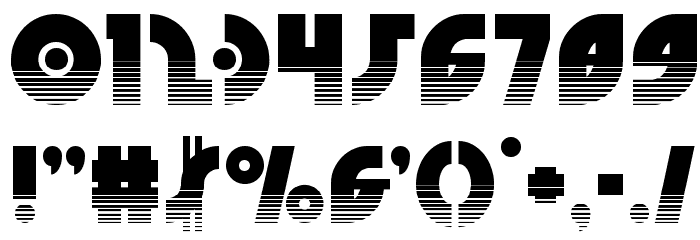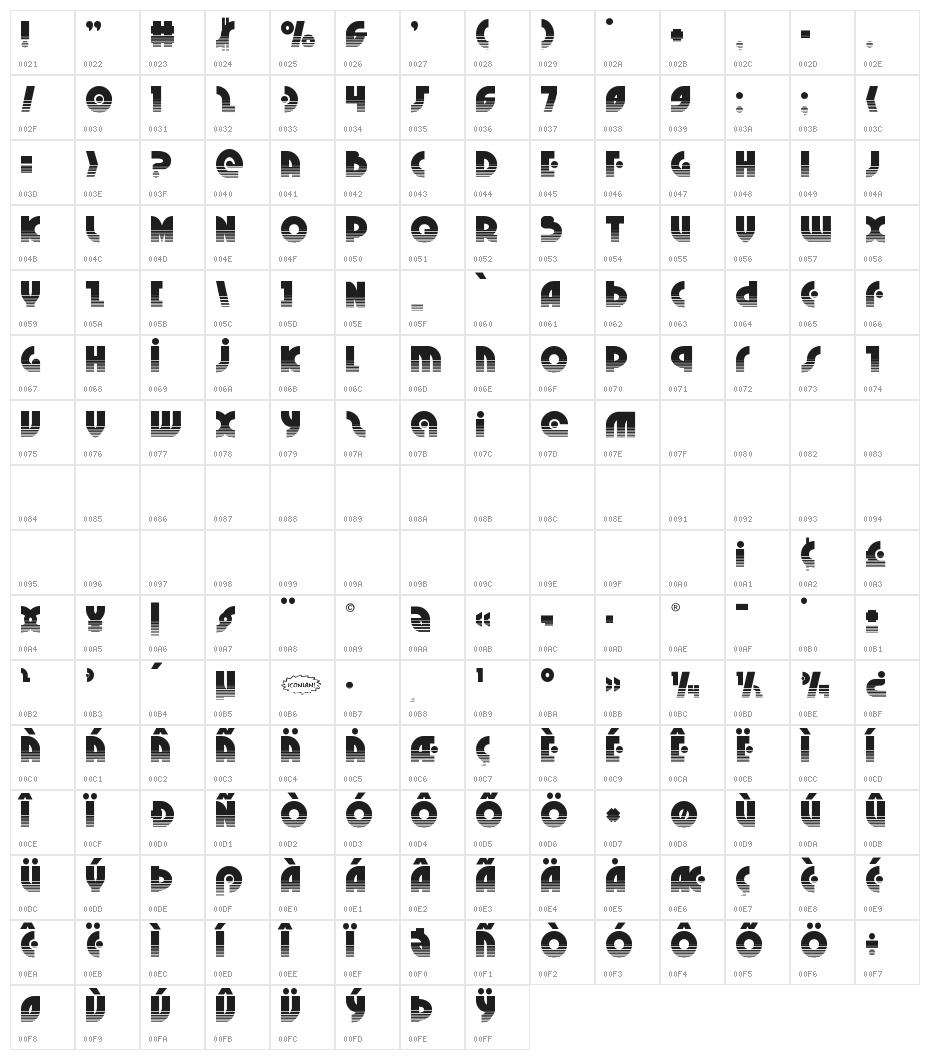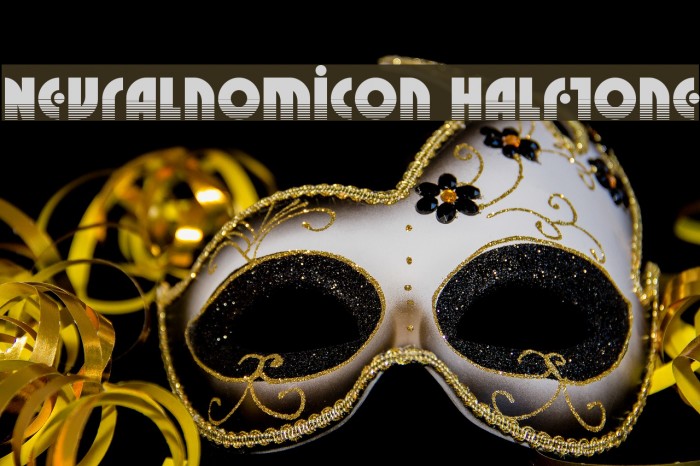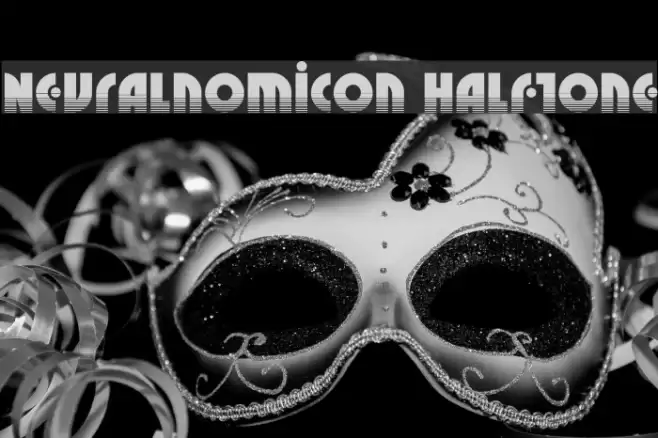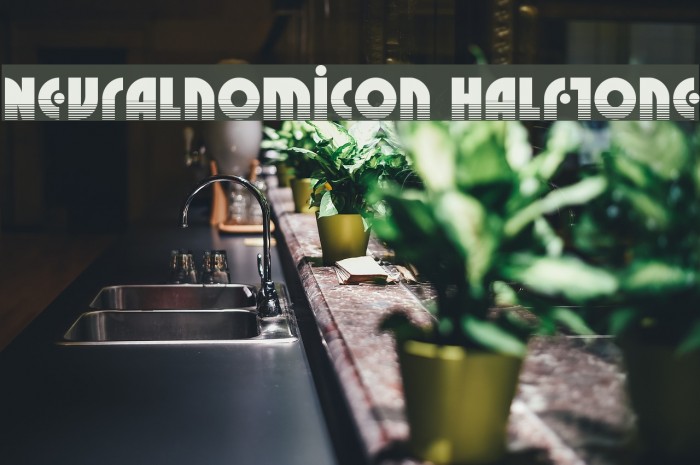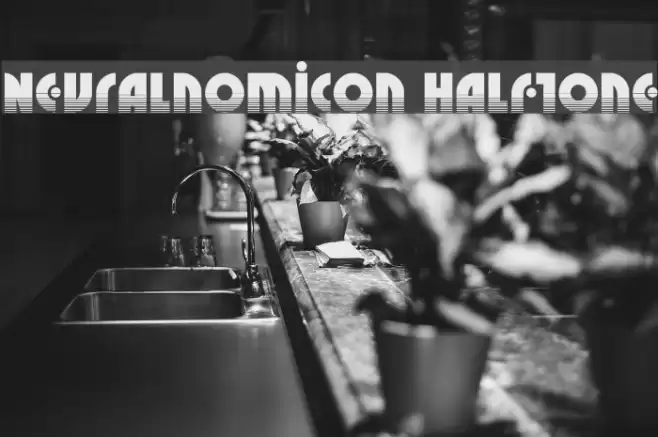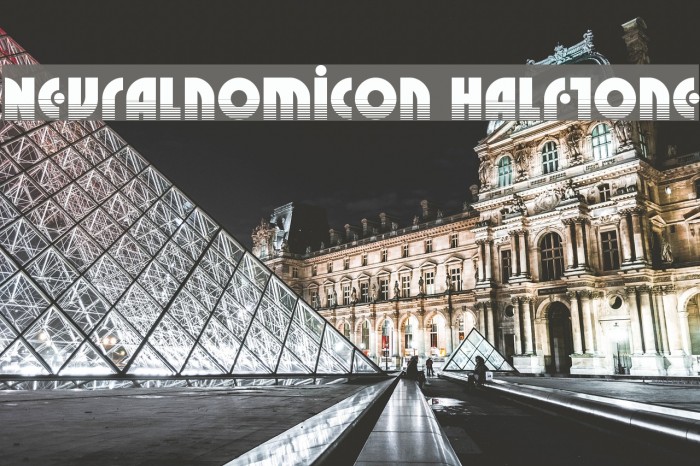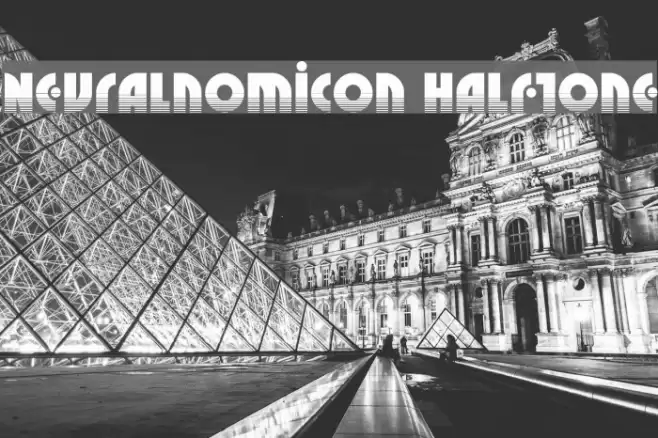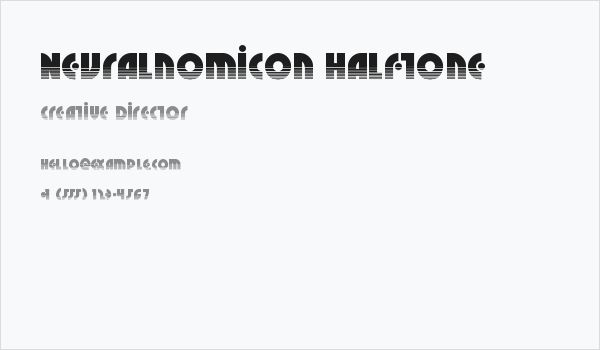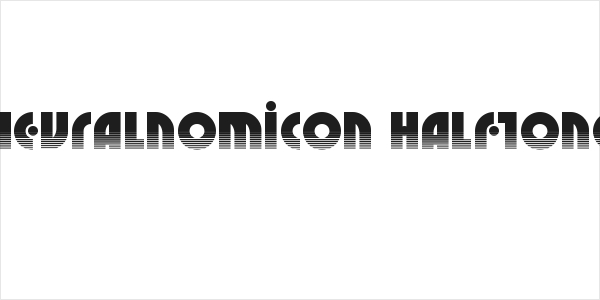
Neuralnomicon Halftone Font
Neuralnomicon Halftone Description
This font features a bold and striking design with a halftone effect that creates a sense of depth and dimension. The characters are constructed with horizontal lines that vary in thickness, giving a unique visual texture. The uppercase and lowercase letters maintain a consistent style, with rounded edges and a futuristic appearance. Numbers and special characters are designed to match the overall aesthetic, making this font suitable for eye-catching displays. The halftone pattern adds a dynamic quality, making it ideal for modern and creative projects.
| Proposed Projects | Ideal for posters, album covers, video game titles, and any project requiring a modern, eye-catching typeface. |